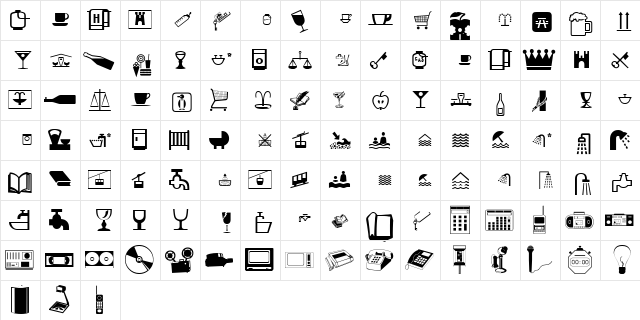
SYMBOL-28 Normal
Design Context for SYMBOL-28 Typeface
SYMBOL-28 is a composed and adaptable typeface that performs quietly and consistently across a wide range of design contexts.